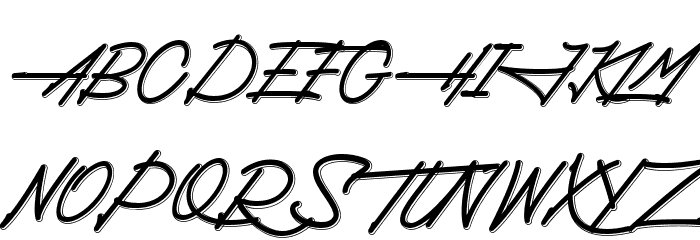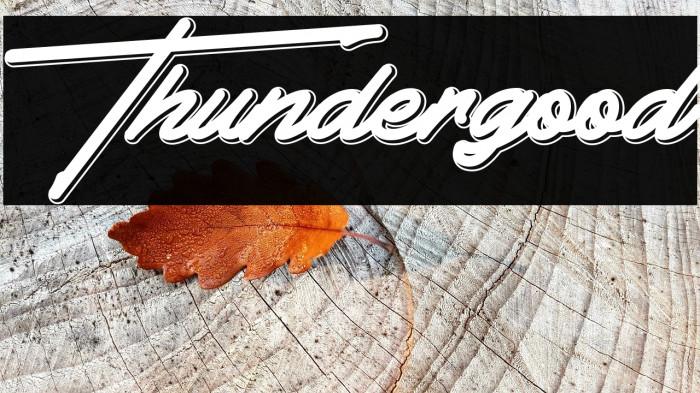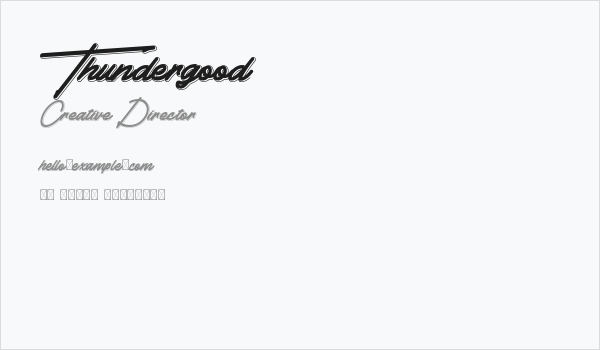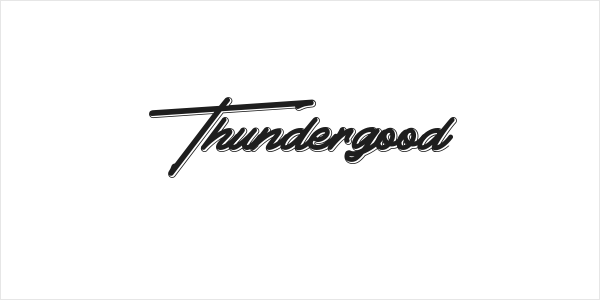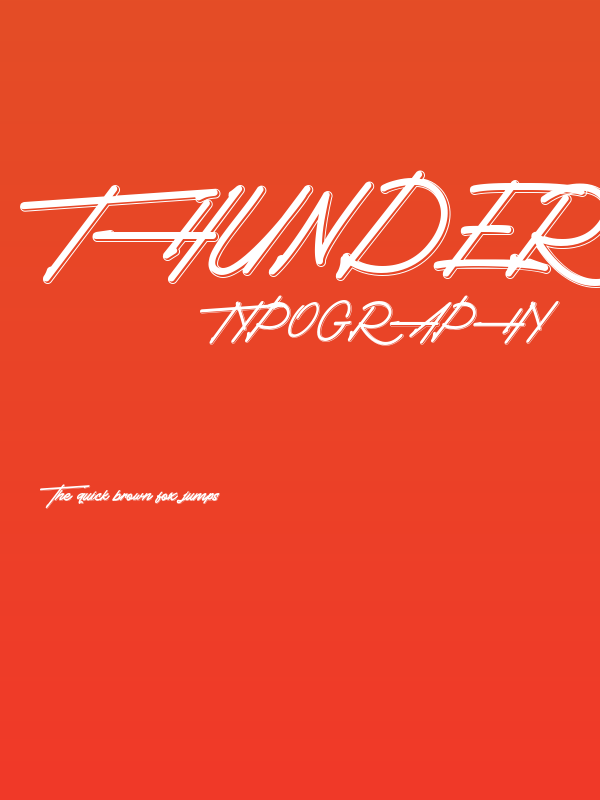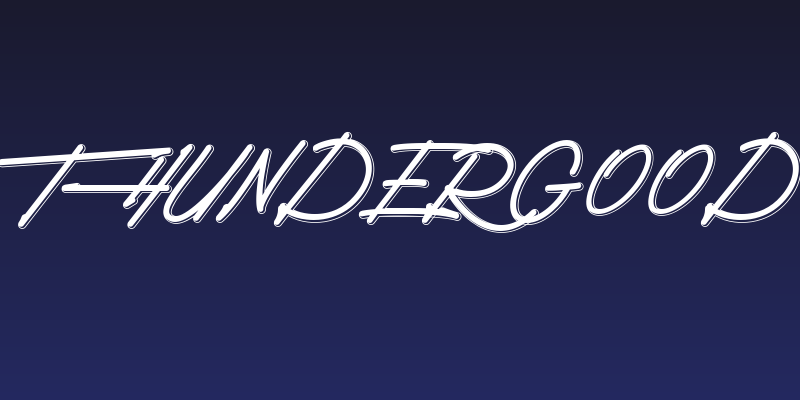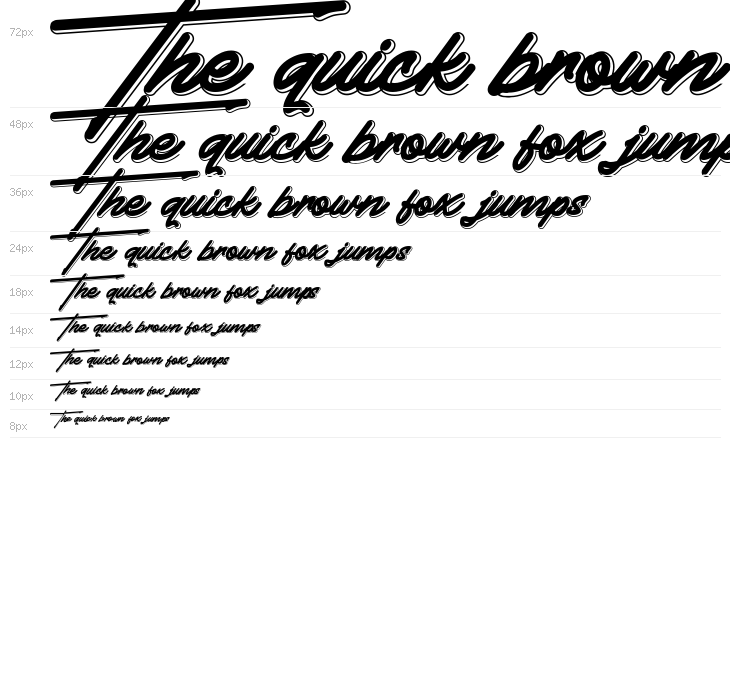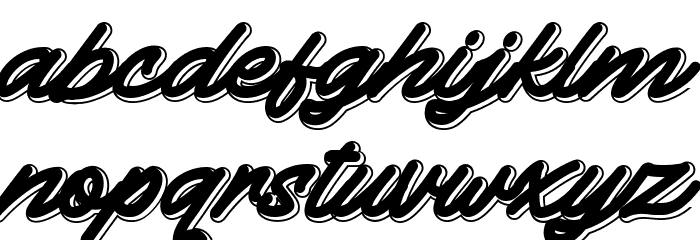
Thundergood Font
Thundergood Description
This font features a bold, script style with a dynamic and energetic flow. The uppercase letters are characterized by their elongated, sweeping lines, giving them a sense of movement and flair. The lowercase letters maintain a consistent thickness, enhancing readability while retaining a stylish appearance. The font's design includes a subtle shadow effect, adding depth and a three-dimensional quality. The overall impression is both modern and playful, making it suitable for a variety of creative applications.